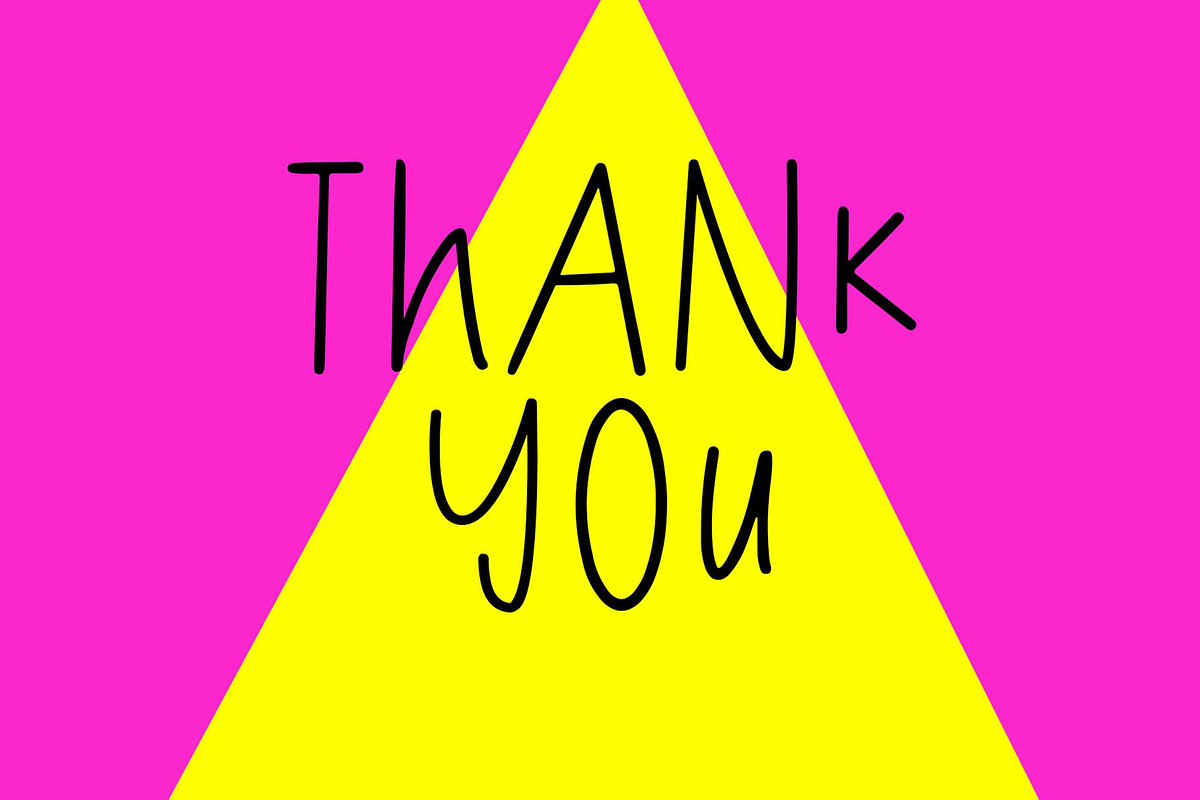
Walk Days
Walk Days is a cute, fun and friendly display font that can be used for all chalkboard quotes or teaching material! Its authentic look will add a personal and realistic feel to your designs. Walk Days font is perfect; logos, greeting cards, a package design, a brand identity, craft design, any DIY project, book title, wedding invitation, packaging, and more.